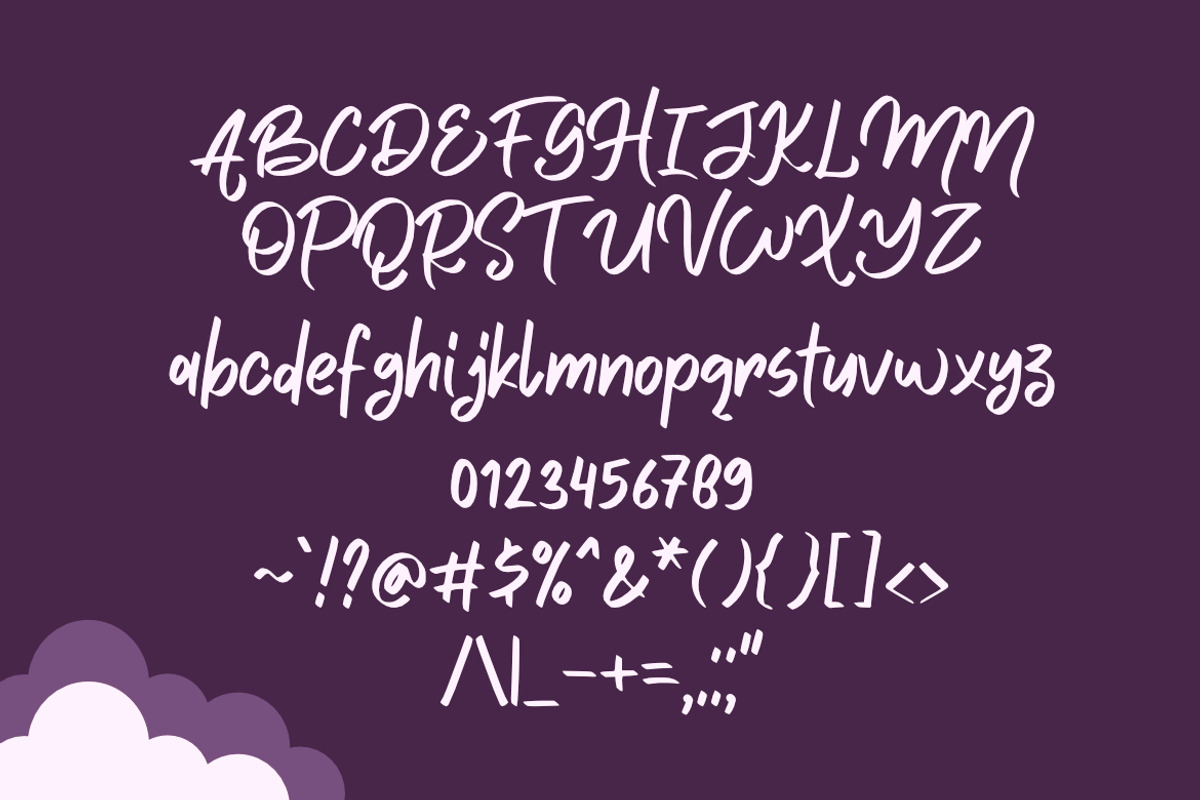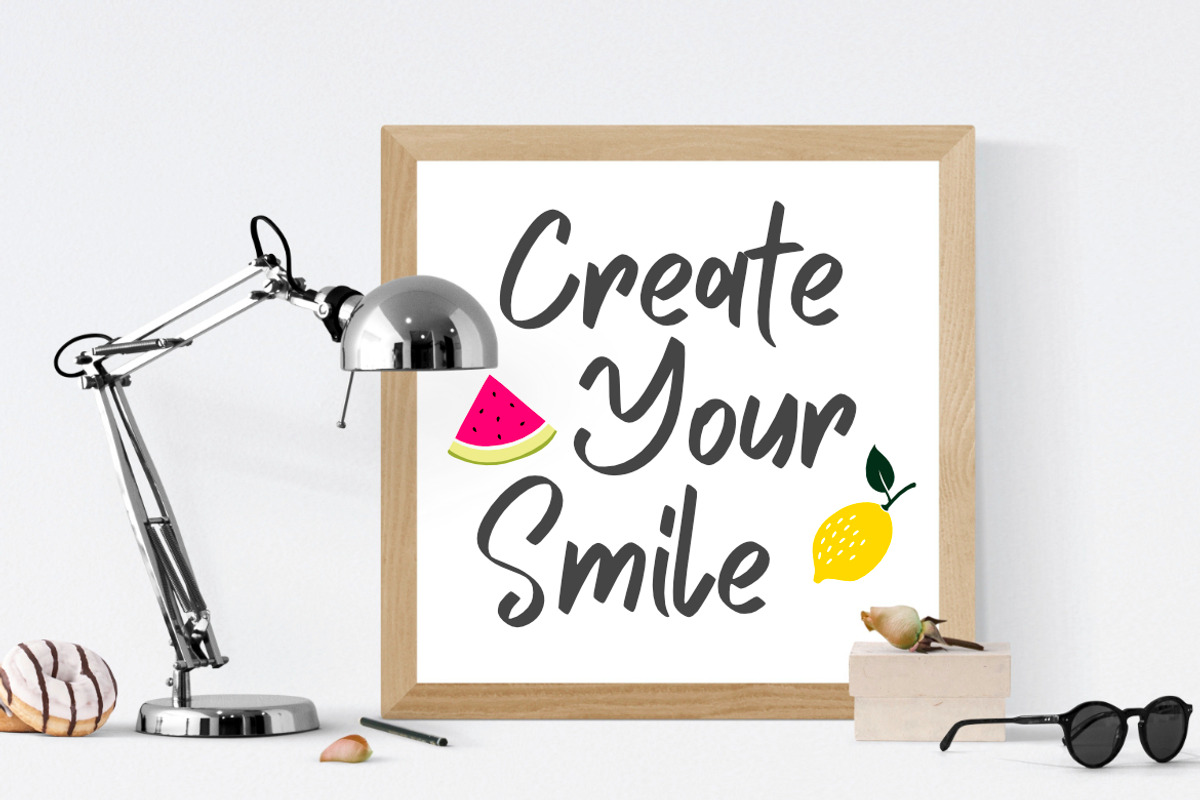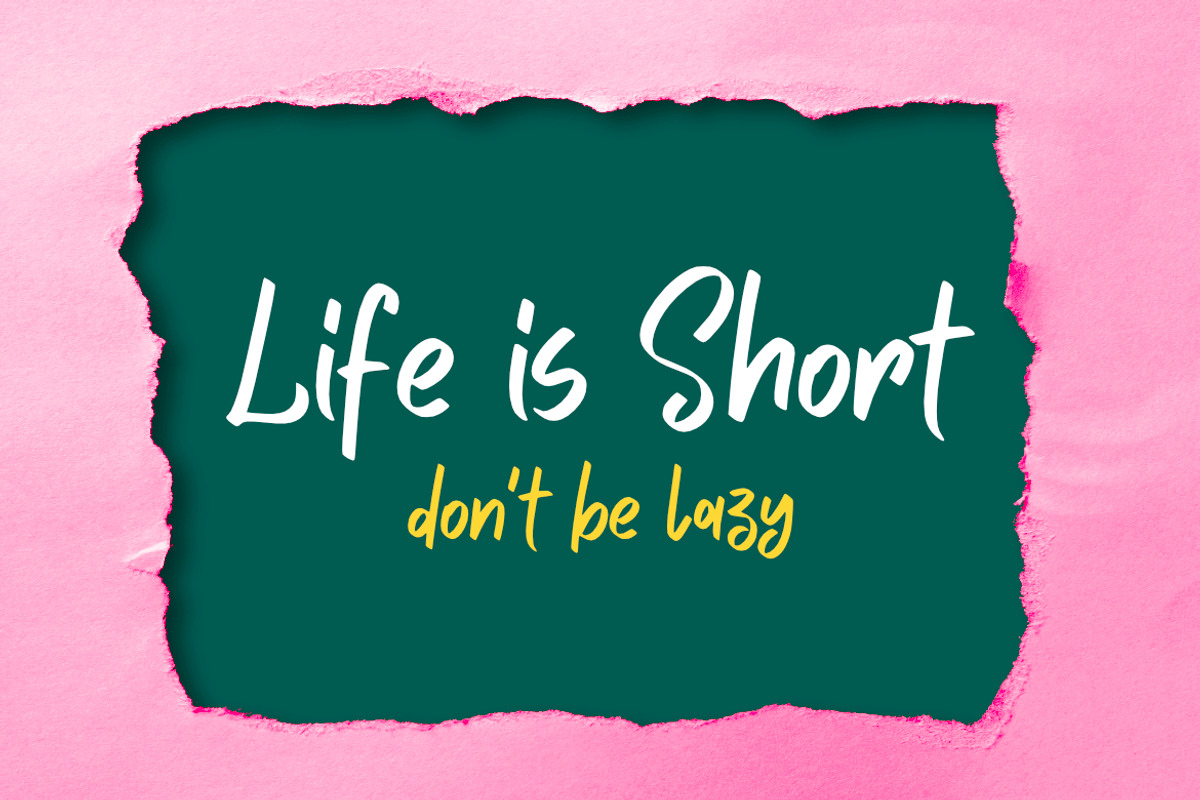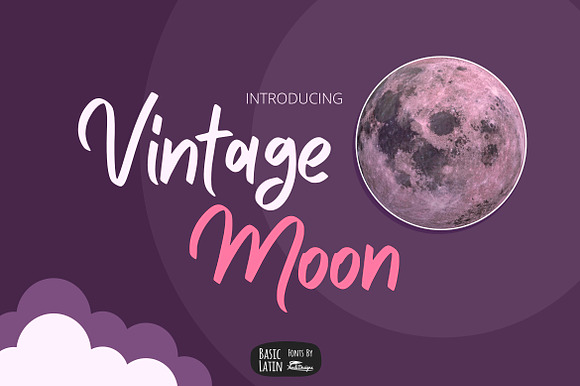
Vintage Moon Marker Font
Simple vintage marker font , suitable for many project , quotes, logo , doodle, heading , title etc.
Vintage Moon Marker Font by YandiDesigns fits naturally into Branding, posters, packaging, typography.